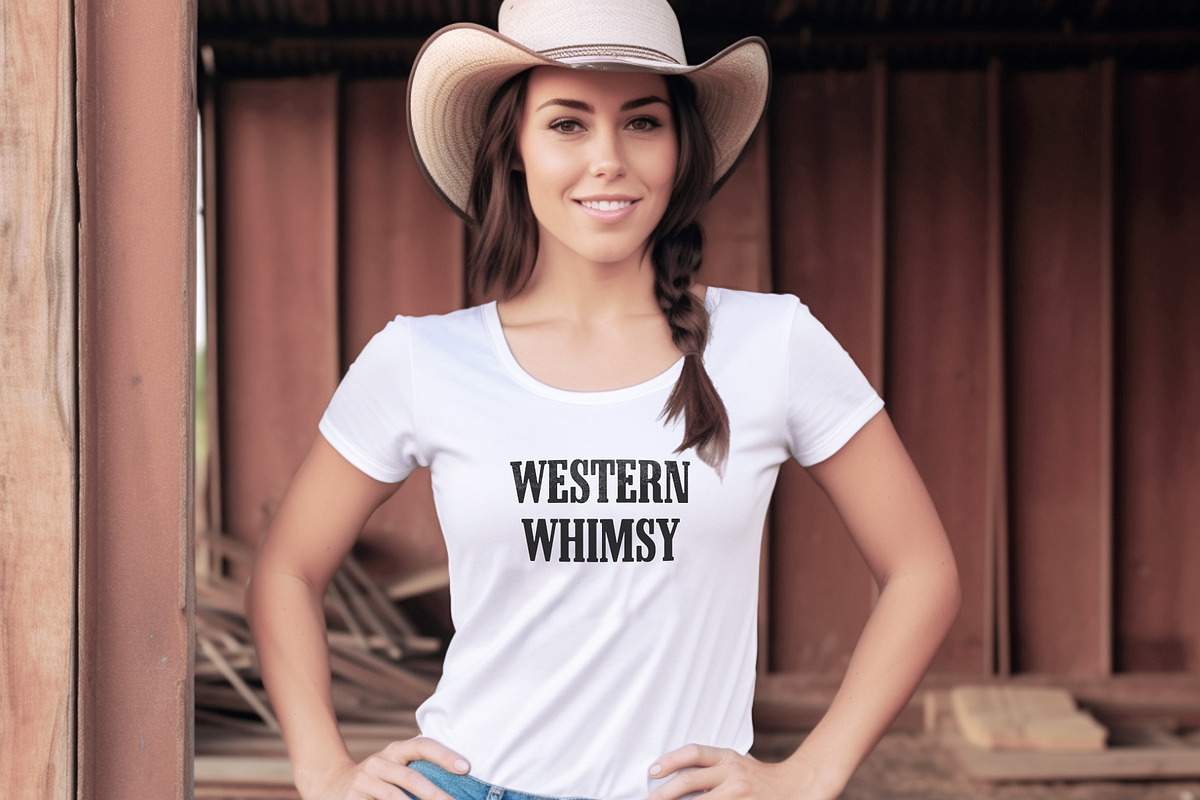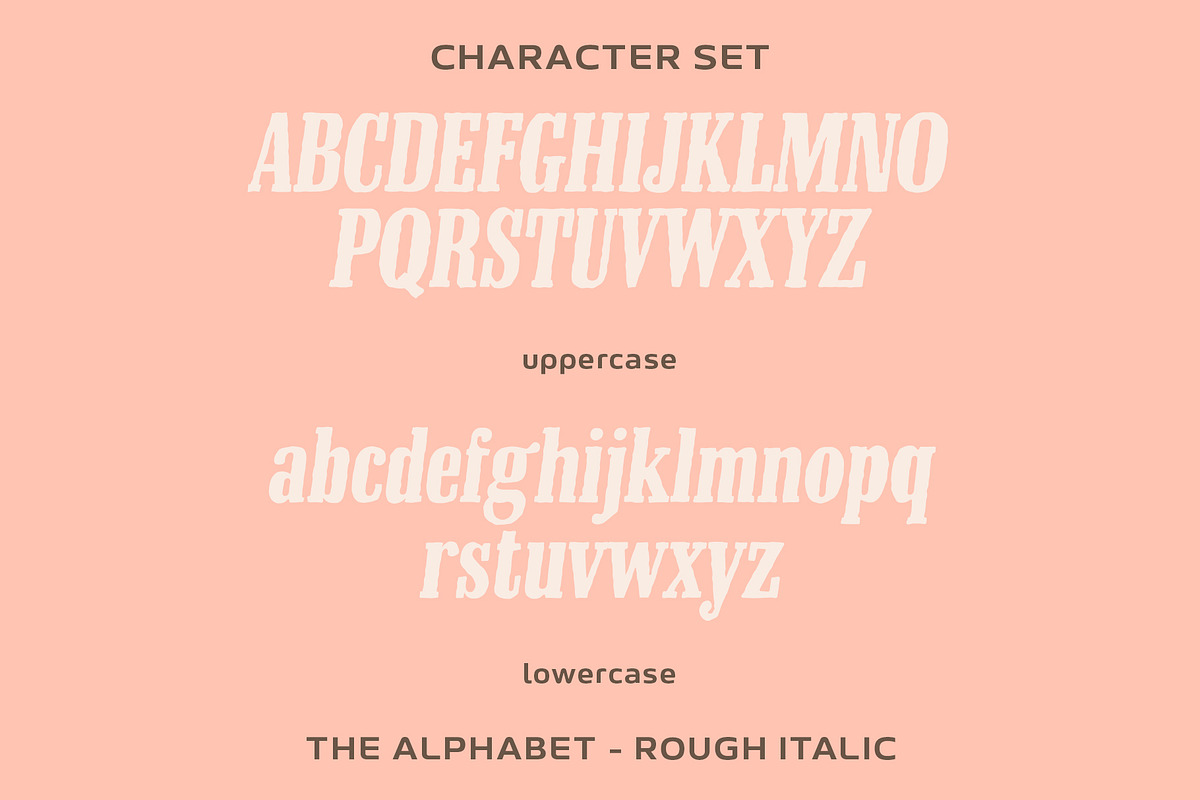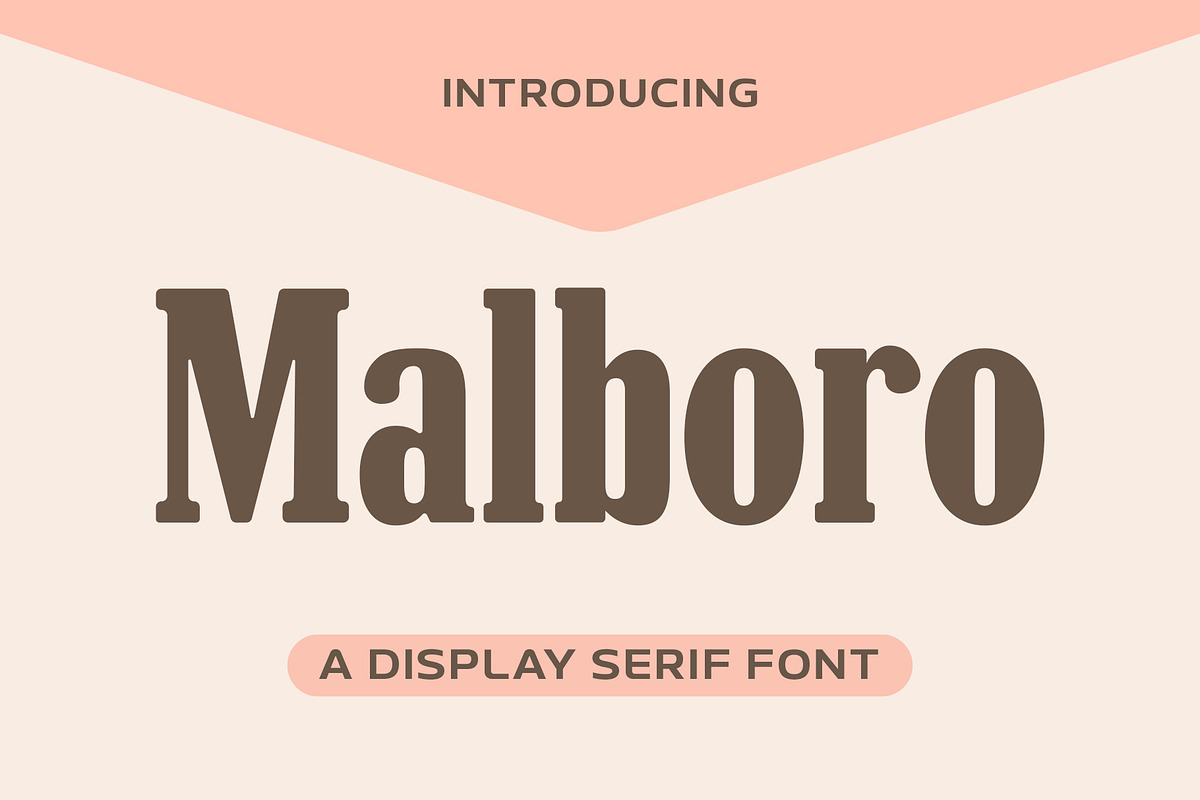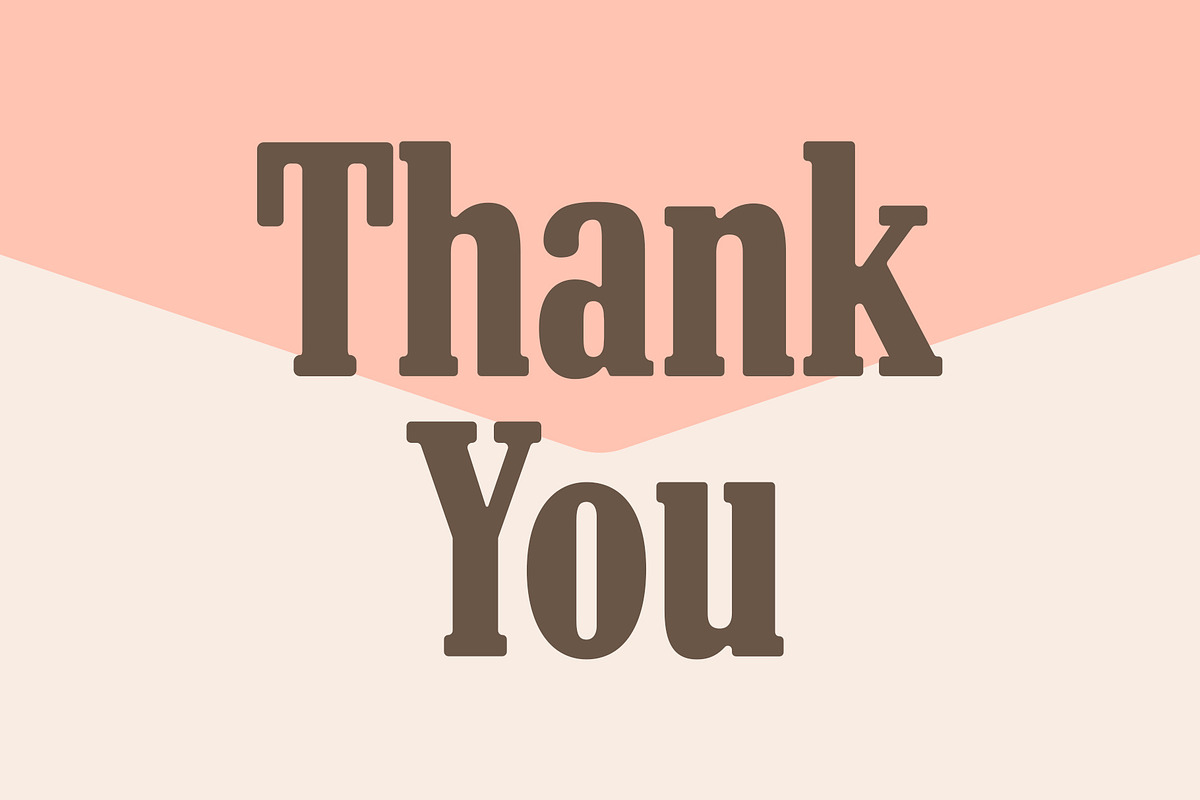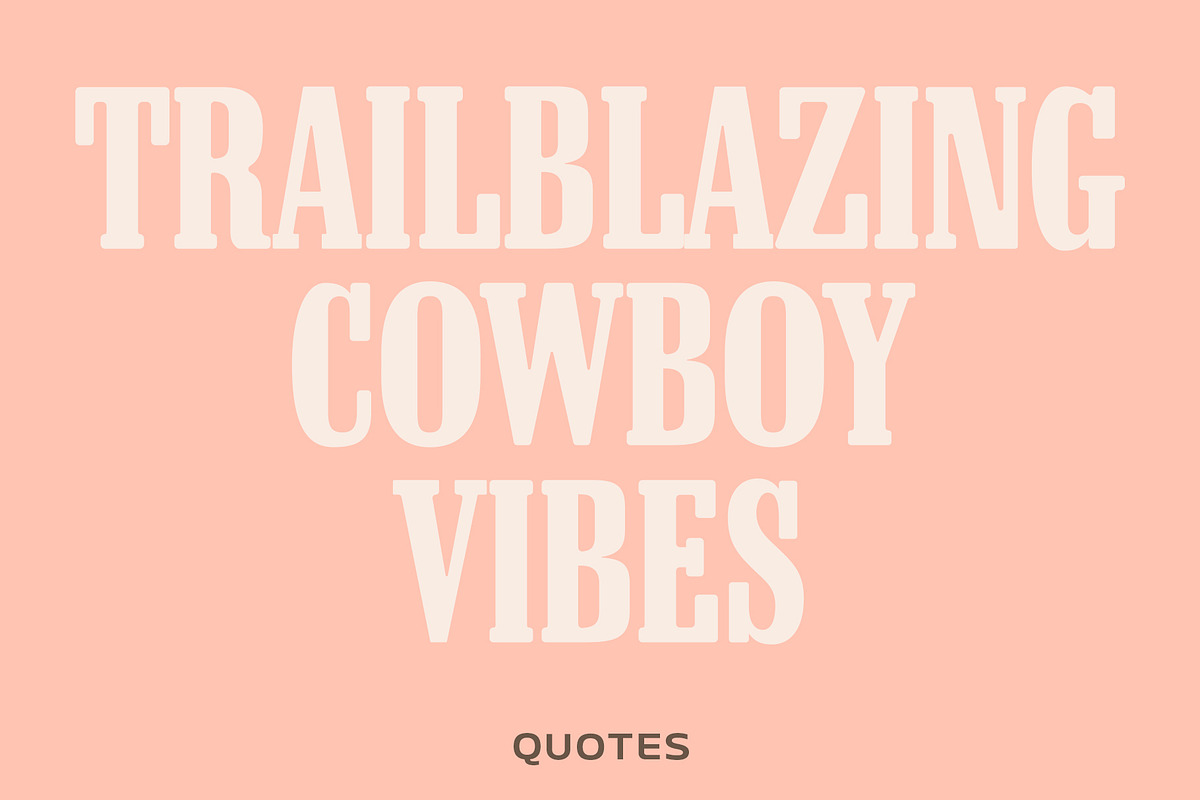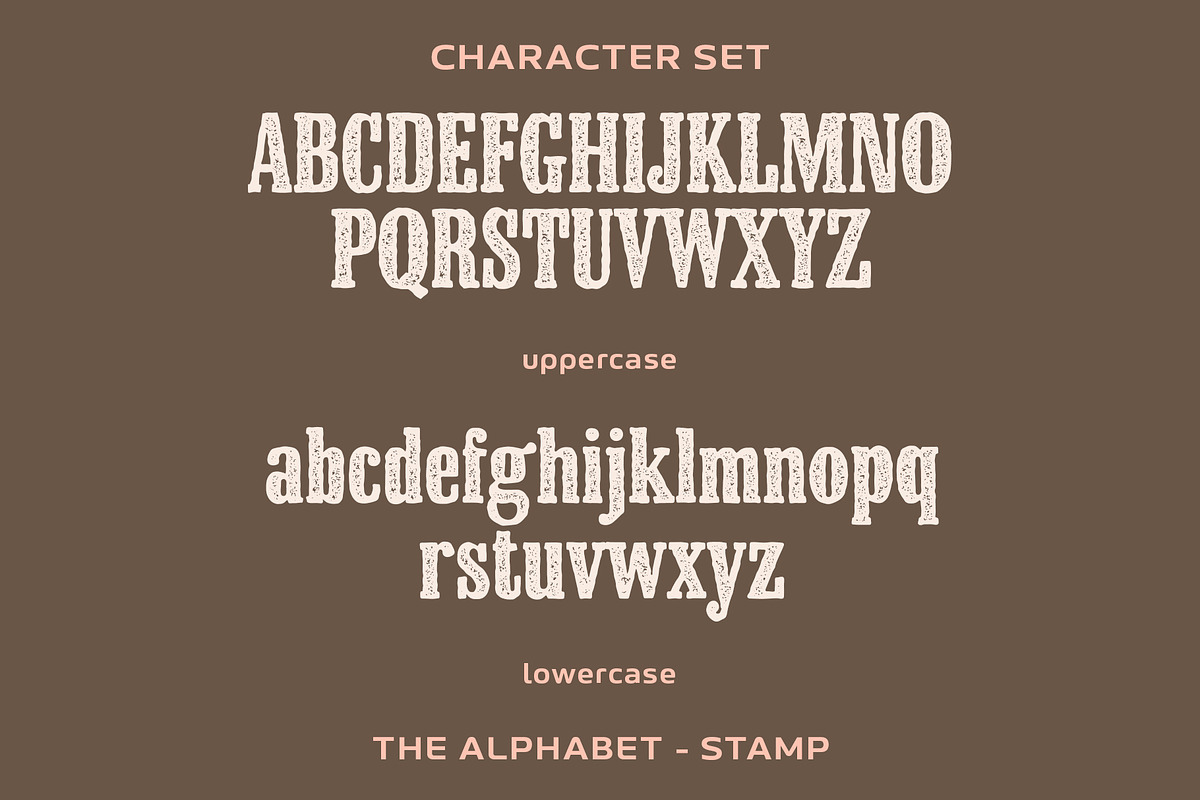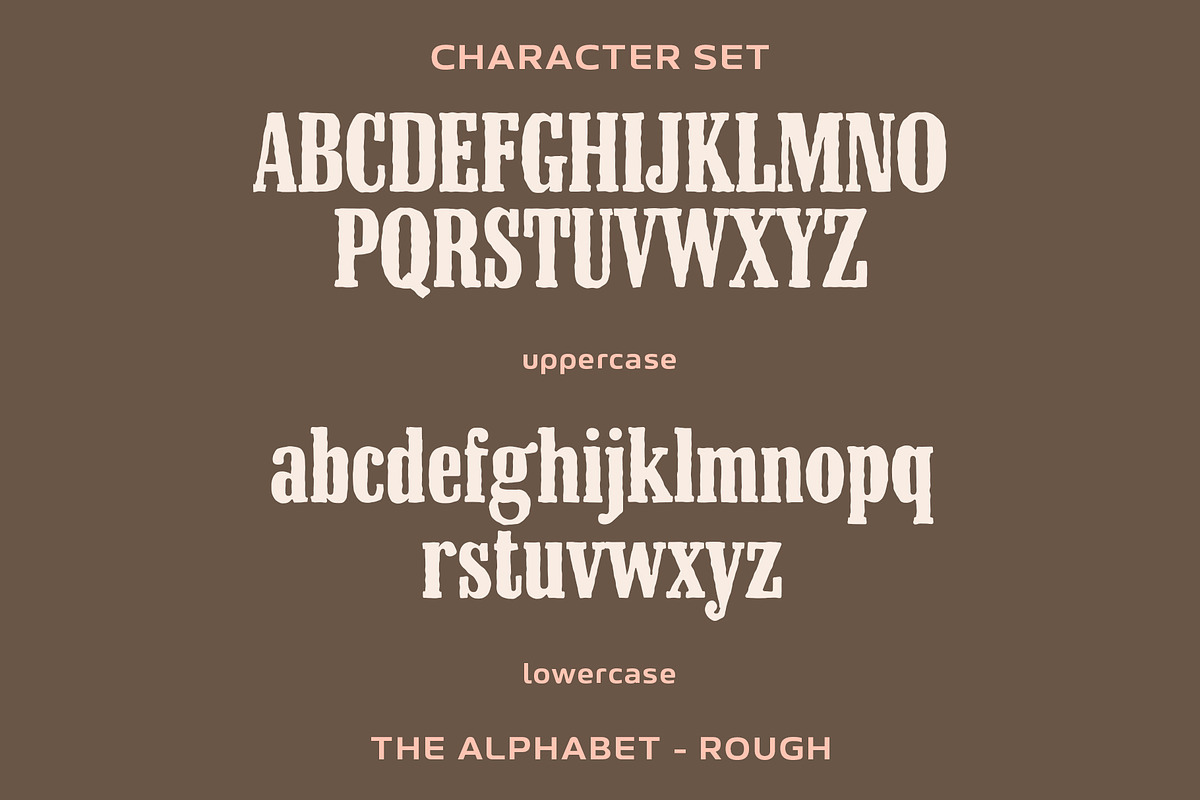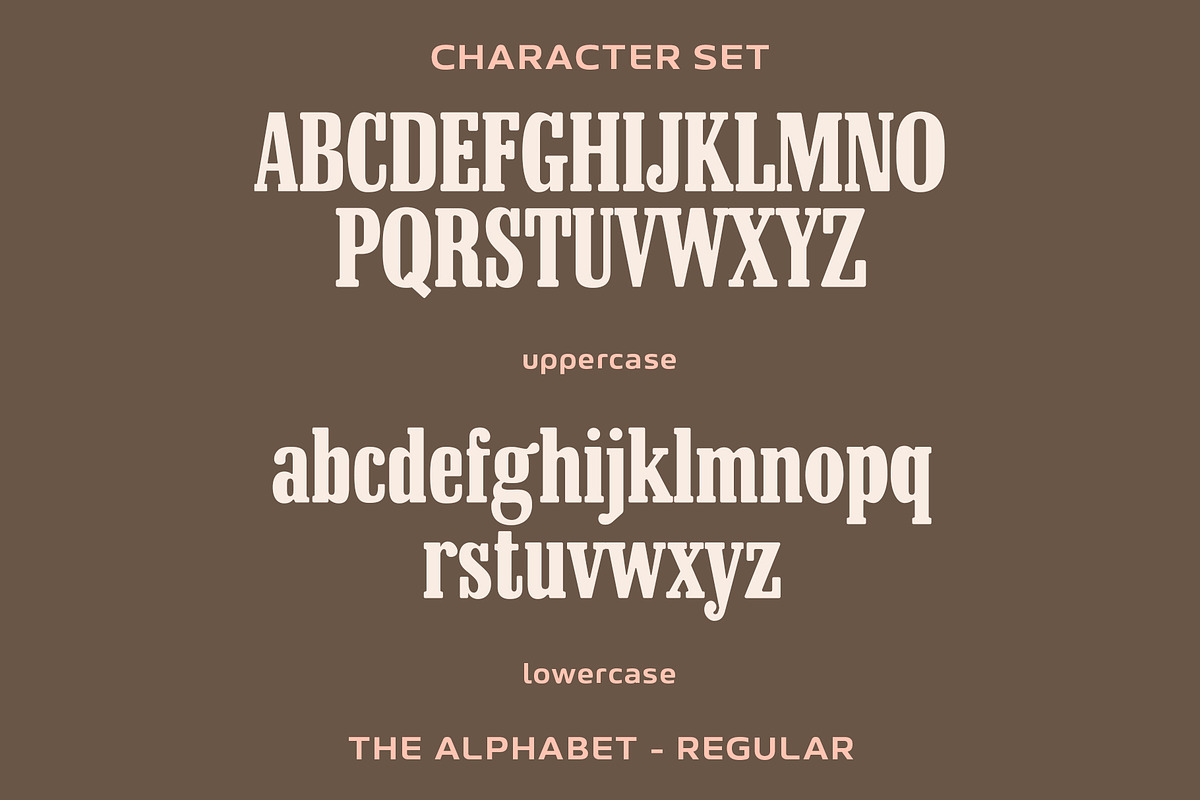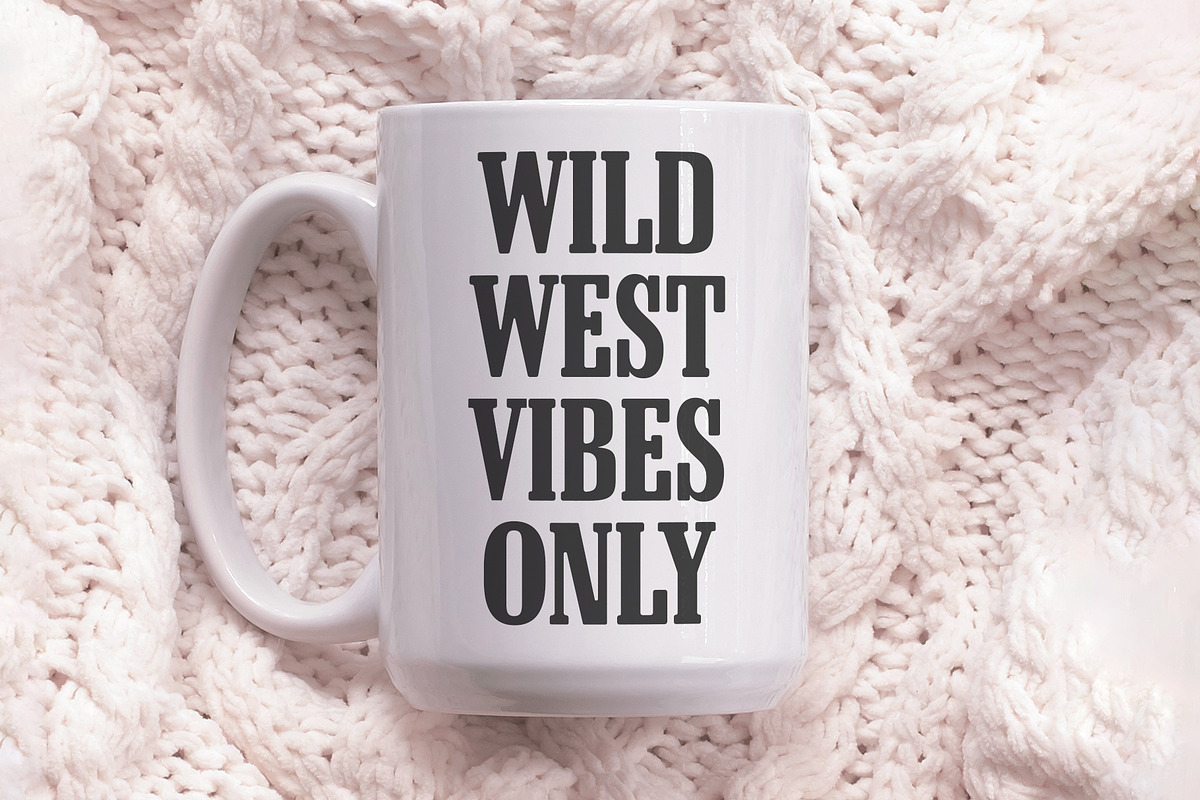
Malboro Font - Serif Font
Malboro is a Sans Serif Font with a distinctive Western style that exudes a perfect blend of rugged charm and modern sophistication. This typeface available in SVG format, compatible with advanced tools such as Cricut and Glowforge, and for use in Procreate. Designed for versatility, Malboro brings a contemporary twist to the classic Western aesthetic, making it an ideal choice for a wide range of design applications.